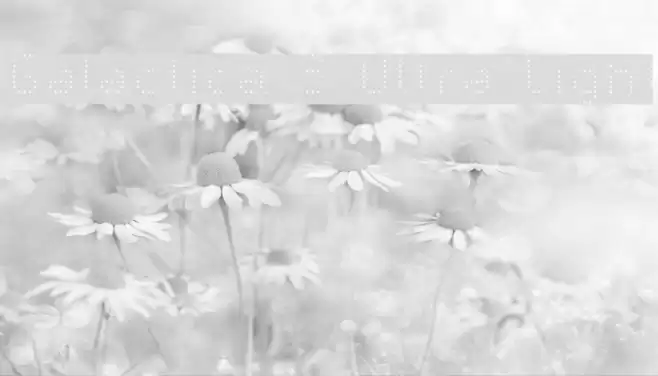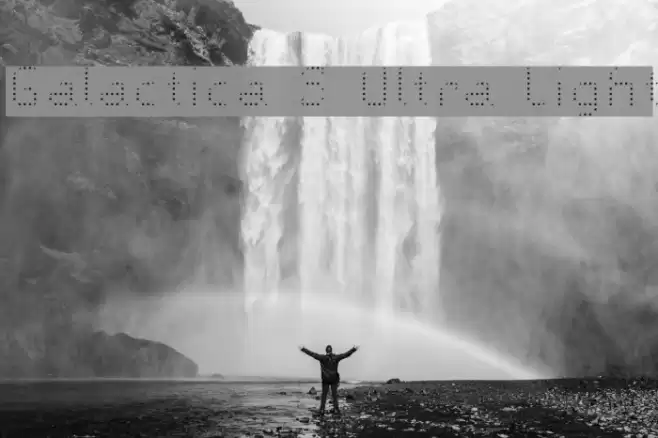
Galactica S Ultra Light Font
Galactica S Ultra Light Description
This font features a unique dotted design, creating a futuristic and digital appearance. Each character is composed of evenly spaced dots, giving it a pixelated yet clean look. The uppercase and lowercase letters maintain a consistent style, with rounded edges and a uniform dot pattern. Numbers and special characters follow the same design principle, ensuring a cohesive visual experience. The font's ultra-light weight adds to its modern and airy feel, making it suitable for digital displays and tech-themed projects.
A futuristic, dotted font with a pixelated, ultra-light design from Uncategorized fonts.
- Proposed Projects: Ideal for digital displays, tech-themed branding, futuristic posters, and sci-fi book covers.